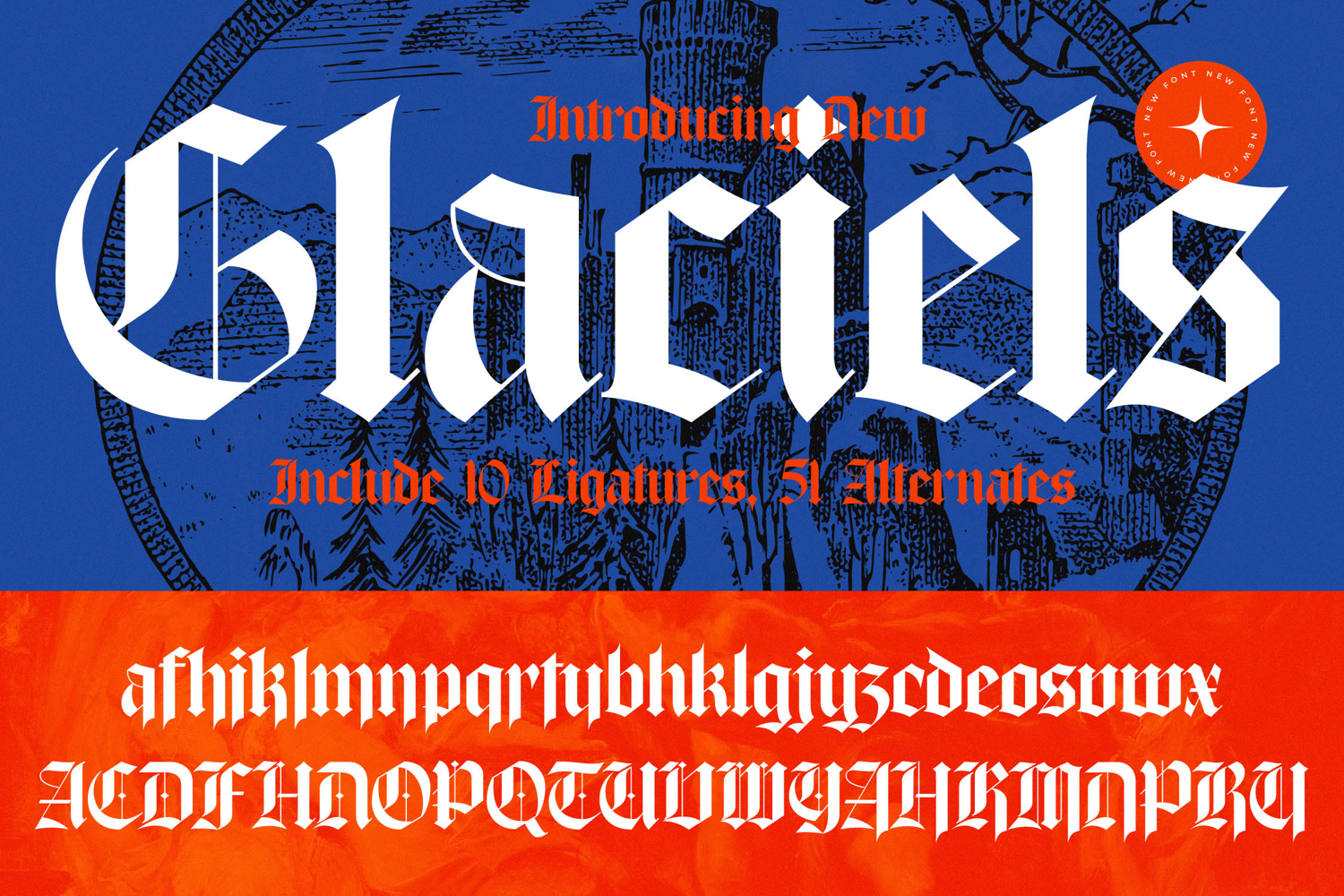
Glaciels - New Blackletter Font
Unleash the powerful allure of historical typography reimagined for the modern era with **Glaciels**. This captivating typeface flawlessly blends traditional blackletter aesthetics with a contemporary, refined edge to command immediate attention.
Inspired by the sharp silhouettes of gothic architecture and the strength of medieval manuscripts, this font evokes a story of heritage meeting high-fashion innovation. Its intricate forms and castle-like structure bring a sense of ancient mystery into the digital age.
The visual weight of this **modern serif display** creates a sense of **luxury typography** that is both bold and breathable. Every character is designed for maximum **branding impact**, utilizing a **high-contrast serif** approach that ensures your headlines remain an **editorial font** masterpiece.
Perfectly aligned with the current **modern serif trend**, this typeface answers the call for **character-driven typography** in a sea of minimalist designs. Designers looking for **editorial display fonts** will find its unique gothic personality a refreshing break from the ordinary.
Whether you are crafting a striking **logo design** or developing a cohesive **branding** identity, this font delivers versatility across **editorial** layouts and premium **packaging**. It is equally at home in high-end **fashion** lookbooks or as a bold statement for a dark-themed **wedding** invitation.
Enhance your creative workflow with professional **ligatures** and creative **alternates** and **swashes** that allow for custom typographic arrangements. The font includes comprehensive **multilingual** support and a full suite of **international characters** to ensure your message resonates across global markets.